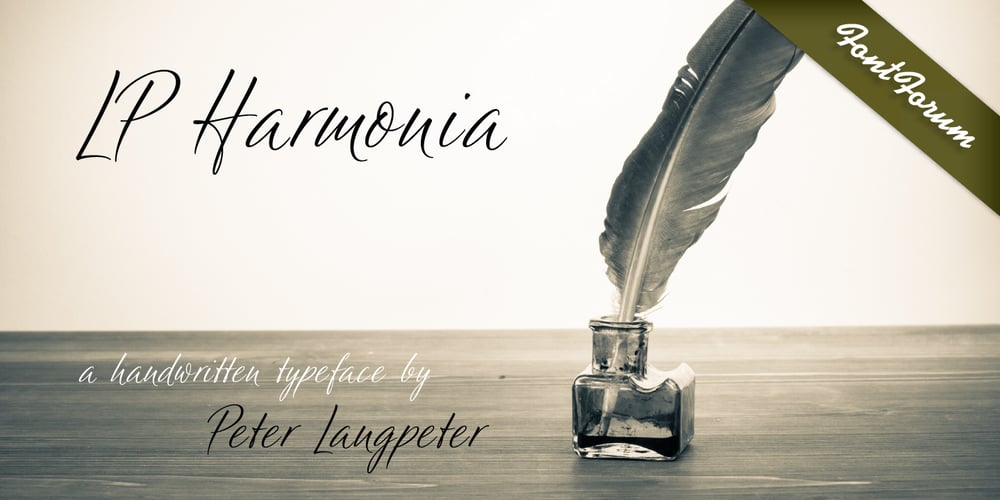
LP Harmonia
LP Harmonia font
LP Harmonia Font Family was designed by Dior Sirous, Peter Lanpeter and published by URW Type Foundry. LP Harmonia contains 1 styles and family package options. LP Harmonia arose from its designer’s private life. As a type designer, Peter Langpeter was often asked by friends or relatives to write a greeting on a birthday card or create a good looking invitation. Over the years, he used ink and a soft feather to form his personal handwriting: LP Harmonia.